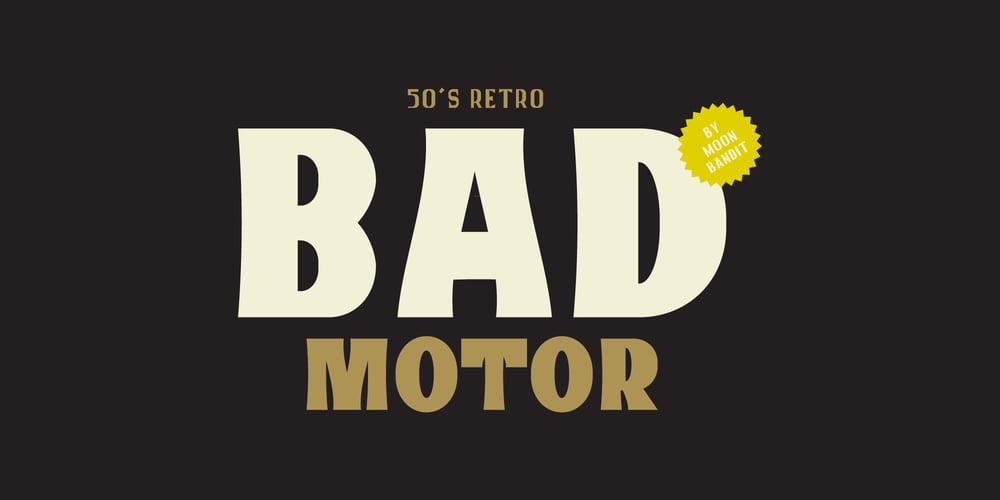
MBF Bad Motor Font Family was designed by Bramaji Dipa Manggala and published by Moonbandit. MBF Bad Motor contains 1 styles and family package options. Moonbandit proudly presents Bad Motor typeface, a powerful bold vintage font. Inspired by the glorious old world of route 66, Bad Motor is perfect for that retro look and feel for your projects. This typeface is maxed with anarchy, attitude and attention. OpenType features include ligatures and kerning.